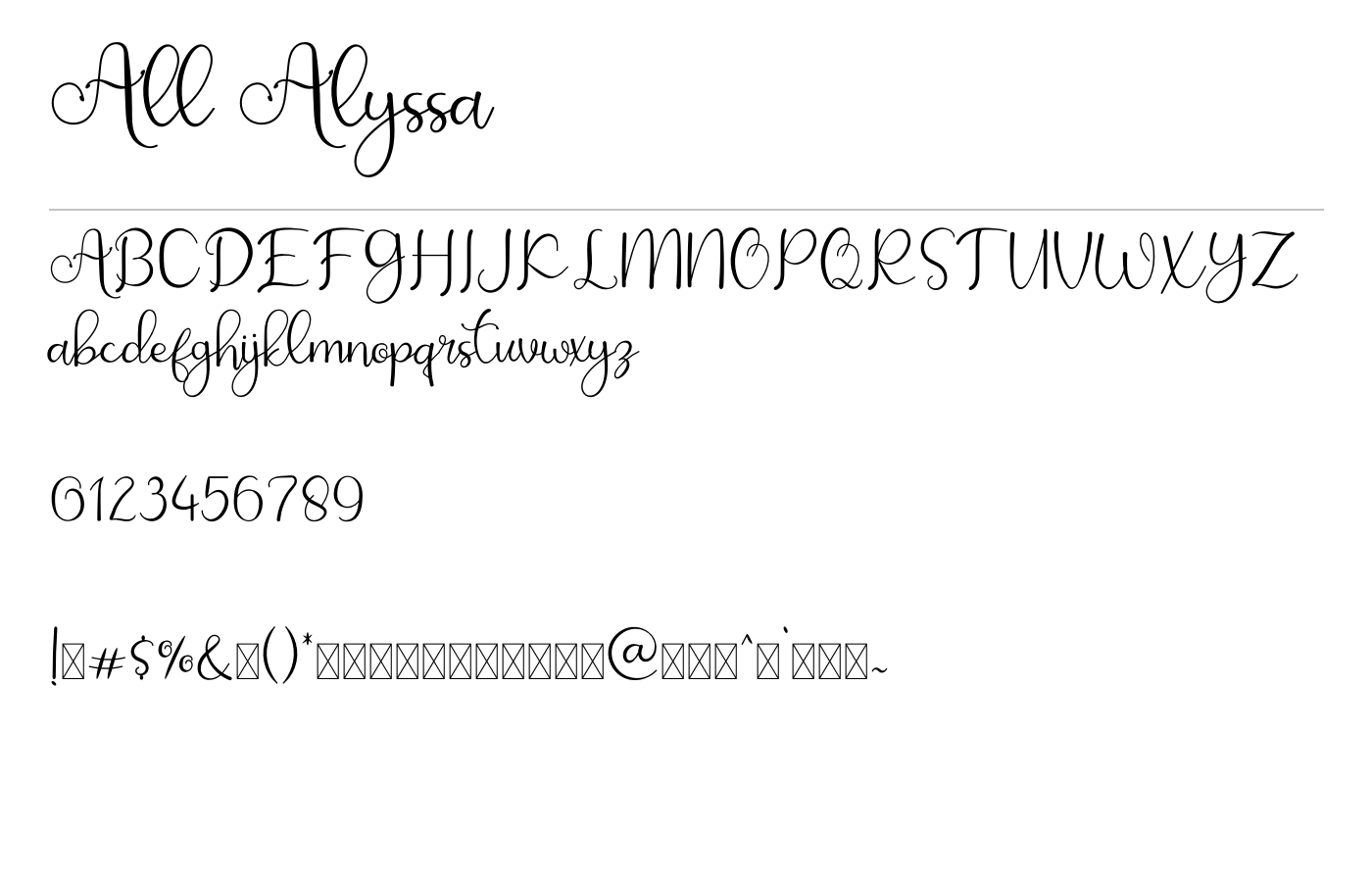
All Alyssa is a delicate and elegant script font with a light, flowing stroke that mimics natural handwriting. Its smooth, looping curves and refined letterforms lend it a personal, feminine charm, making it ideal for invitations, branding, and any design seeking a graceful, sophisticated touch. This font works beautifully in contexts where a warm, decorative feel is desired without sacrificing readability.
All Alyssa Font
About All Alyssa Font
| Font family | All Alyssa Font |
| Designer | Rofiq Soelta |